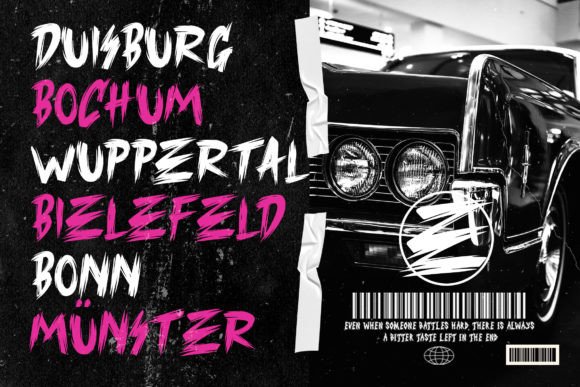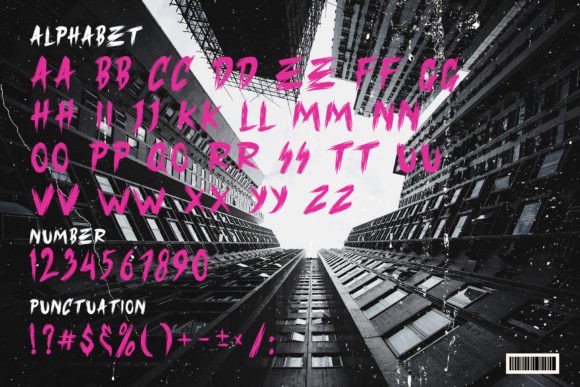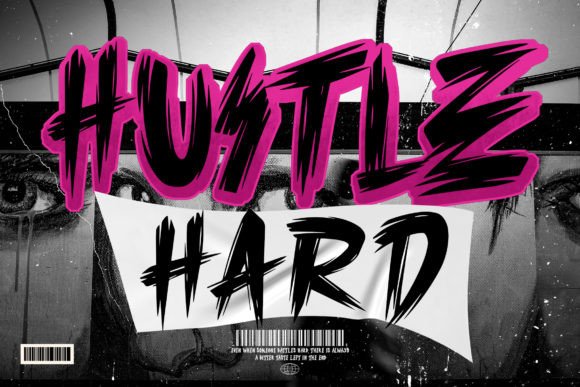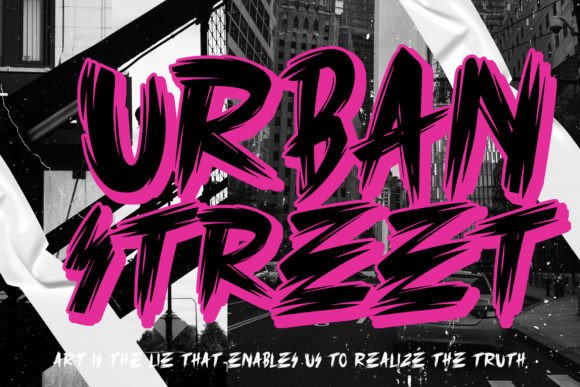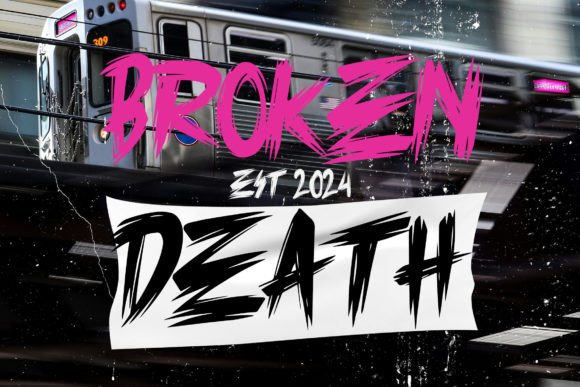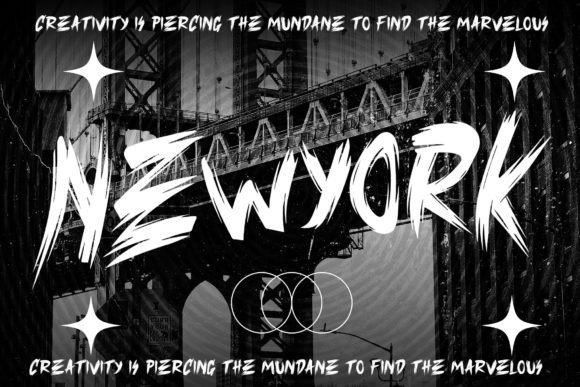
Introduction to Frank Freak Font
Frank Freak is an incredibly cool and unique display font.
Frank Freak Font offers exceptional quality and versatility, making it a valuable addition to your design toolkit. Whether you’re creating for personal projects or commercial use, Frank Freak Font delivers professional results.